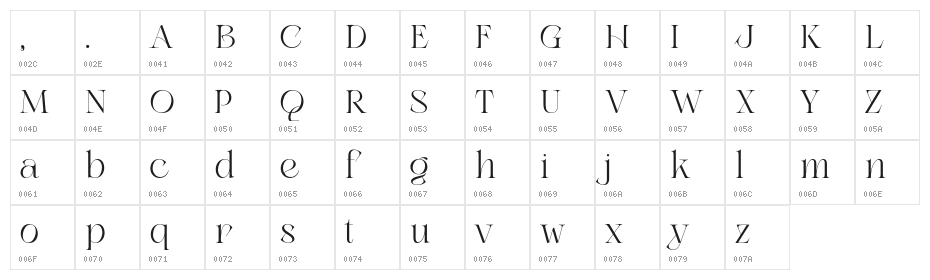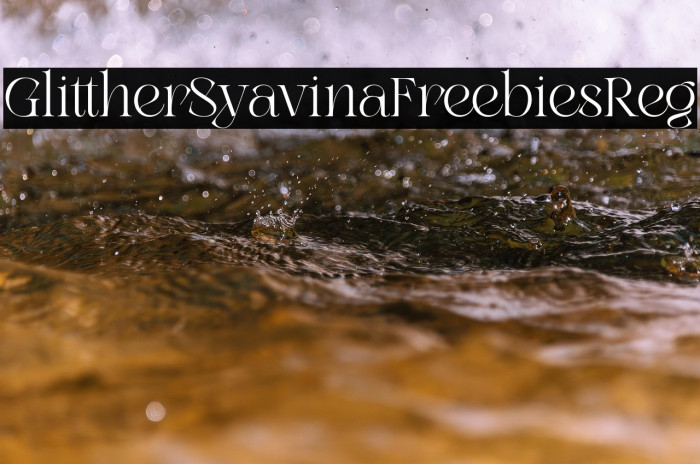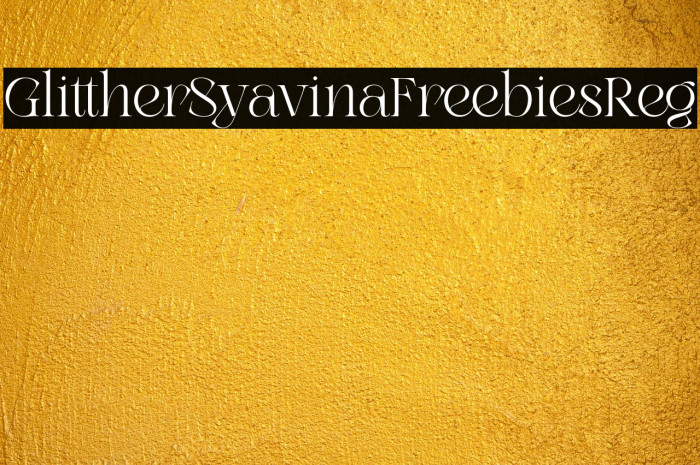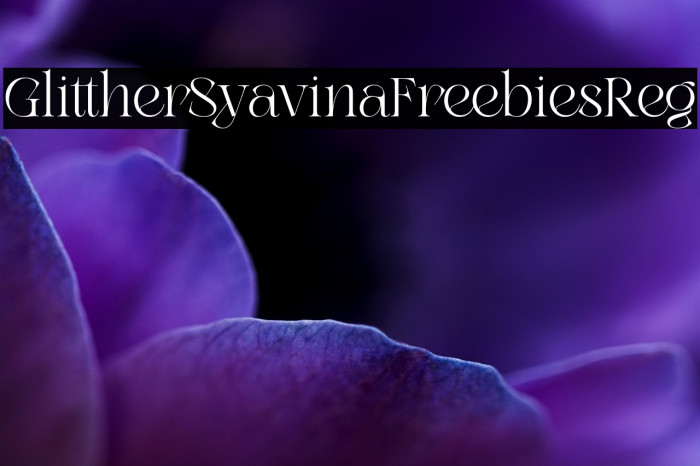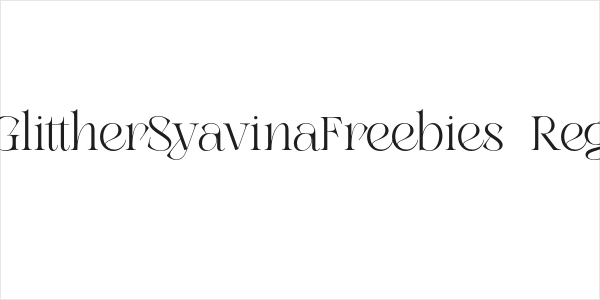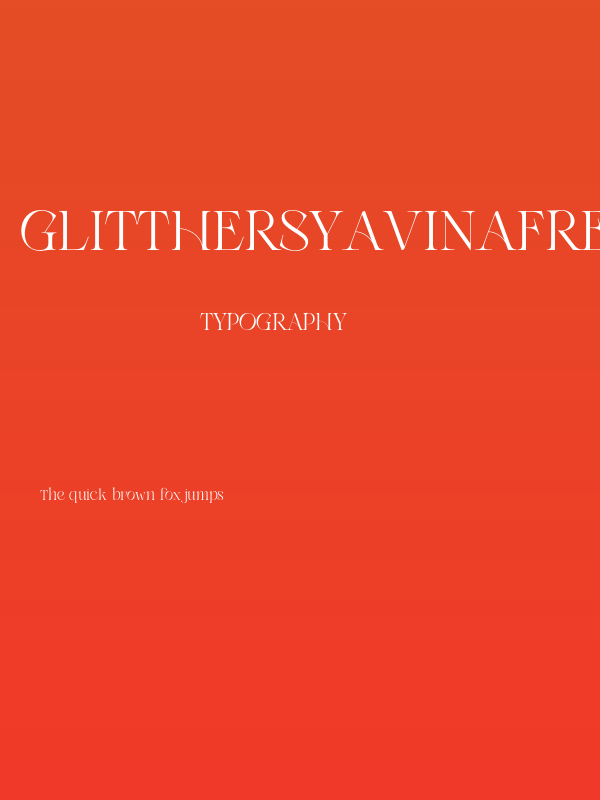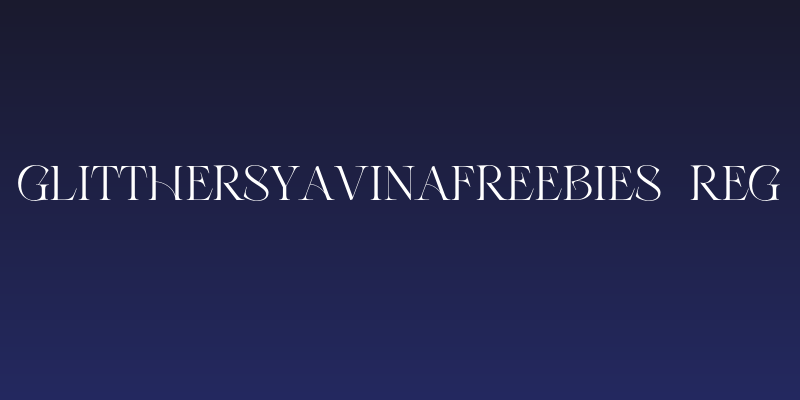
GlittherSyavinaFreebies-Reg Font
GlittherSyavinaFreebies-Reg Description
This font features an elegant and sophisticated design with a high contrast between thick and thin strokes, giving it a refined and stylish appearance. The serifs are sharp and pronounced, adding a touch of classic elegance. The uppercase letters are tall and commanding, while the lowercase letters maintain a graceful flow. The overall design is balanced and harmonious, making it suitable for upscale branding and editorial design. The special characters are designed with the same attention to detail, ensuring consistency throughout the typeface.
| Proposed Projects | Ideal for luxury branding, editorial layouts, wedding invitations, and high-end product packaging. |